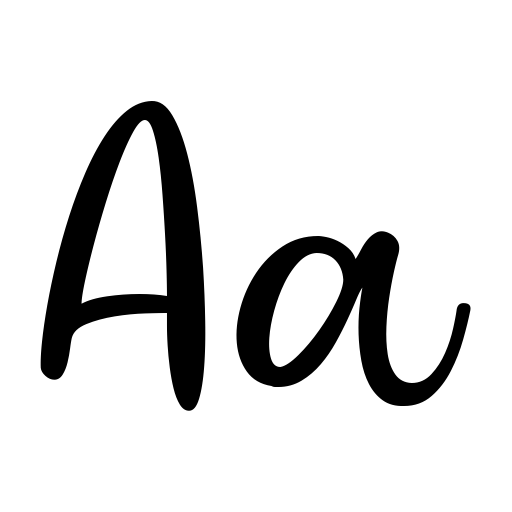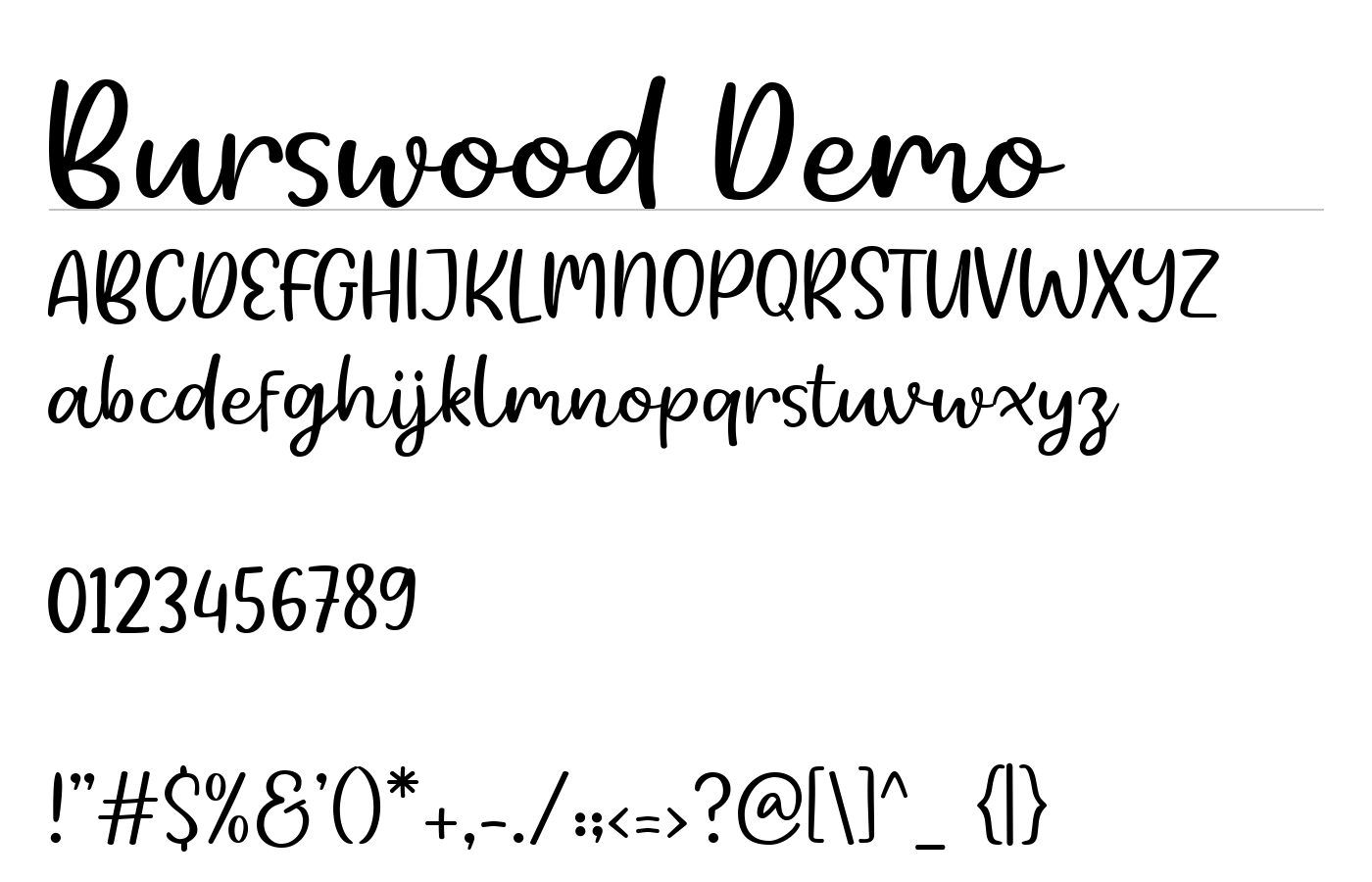
Burswood Demo is a playful, casual script font with a hand-drawn feel that combines smooth, rounded strokes and a friendly vibe. Its moderate weight and lively letterforms make it perfect for invitations, branding, or any design needing an approachable yet stylish touch. This font works well in creative projects where a warm, personal connection is desired.
Burswood Demo Font
About Burswood Demo Font